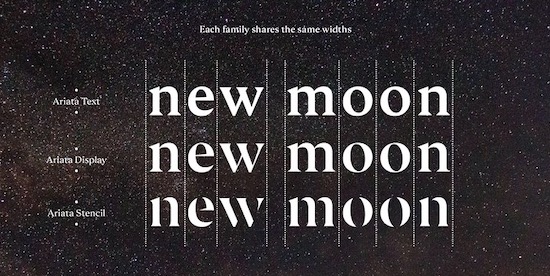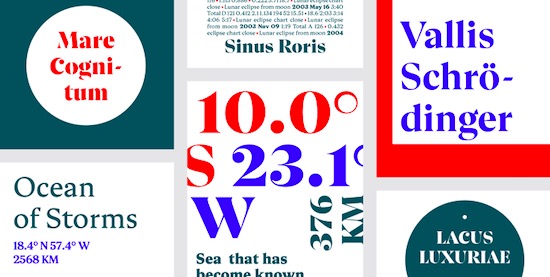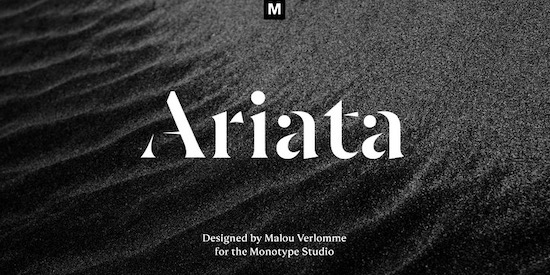
Ariata Font
Ariata Font includes three unique styles that was designed & created and released by Malou Verlomme. With Text style, it performs as well as in blocks of copy as they do in the occasional titles. The “Display” style of Ariata Font is versatile delicate but incredibly confident designs that shine in small & medium sizes, while this “Stencil” font is provocative and eye-catching.
This serif typeface is absolutely stunning for your next projects such as Label, Poster, Logotype, product packaging, printed quotes, cards, logos, invitations, headers, Letterhead, Apparel Design, and more.